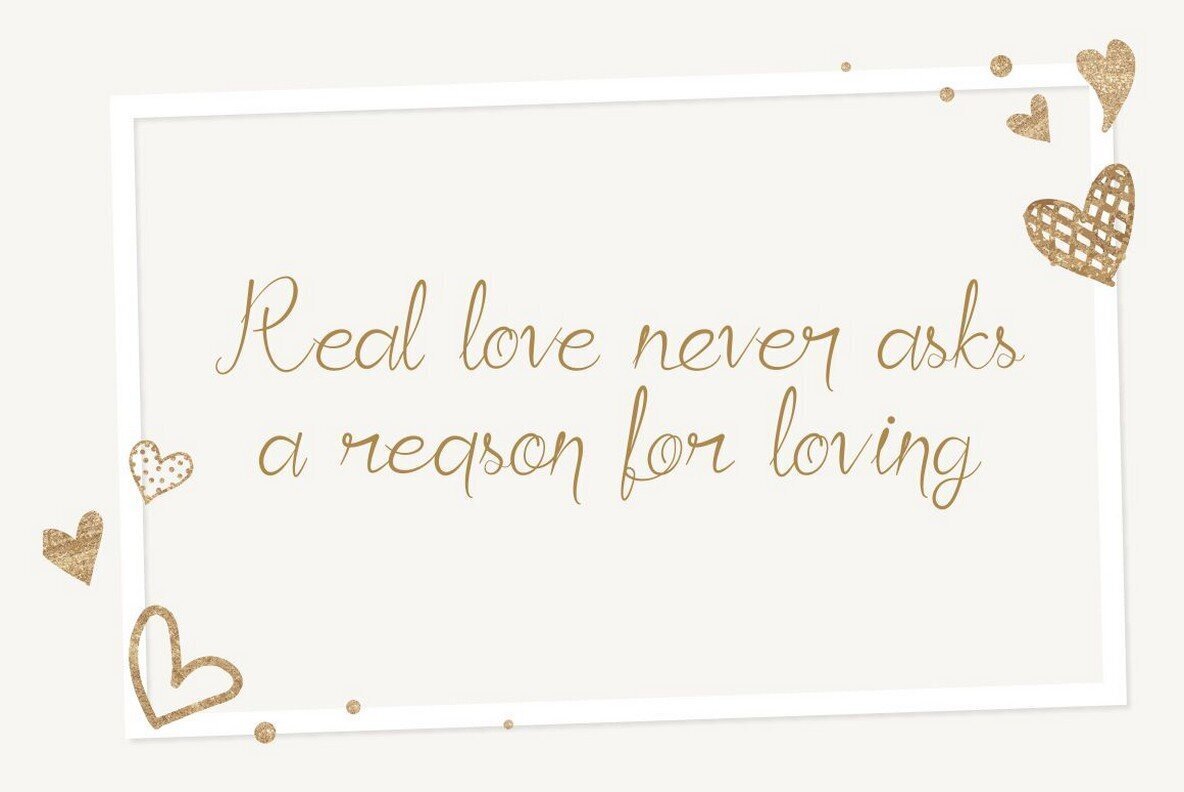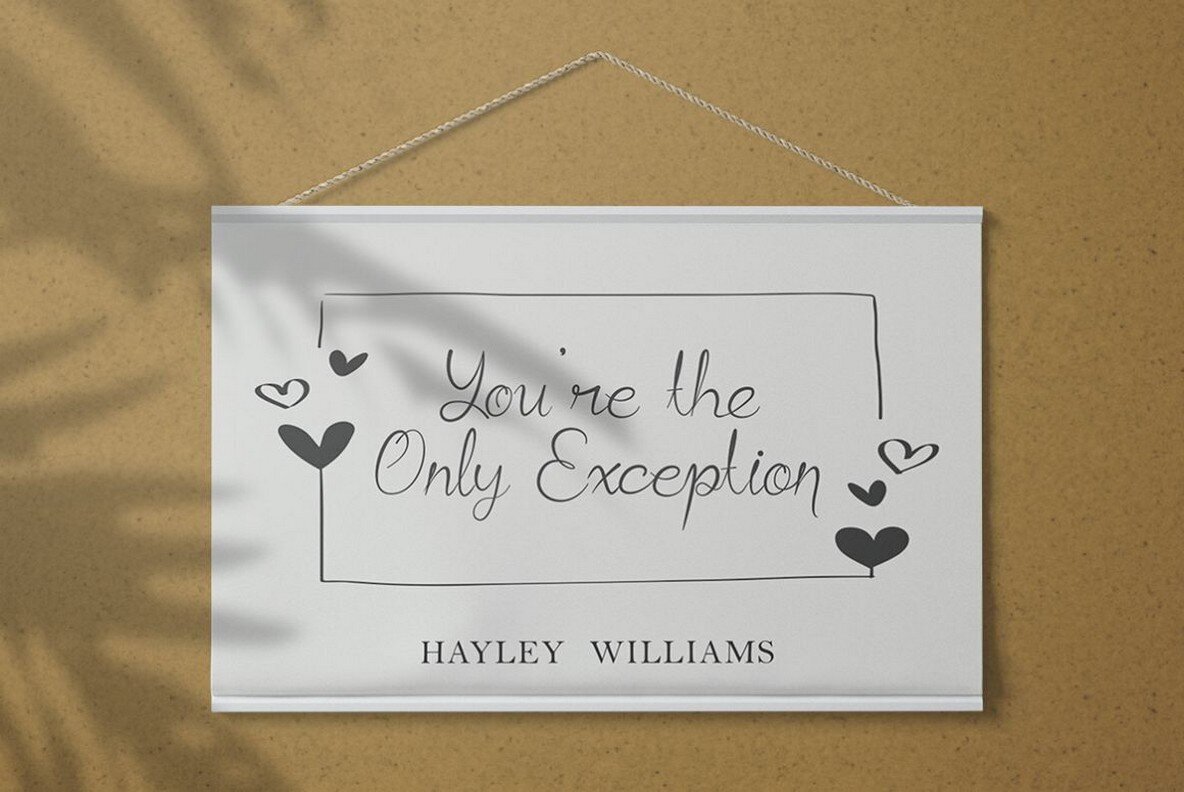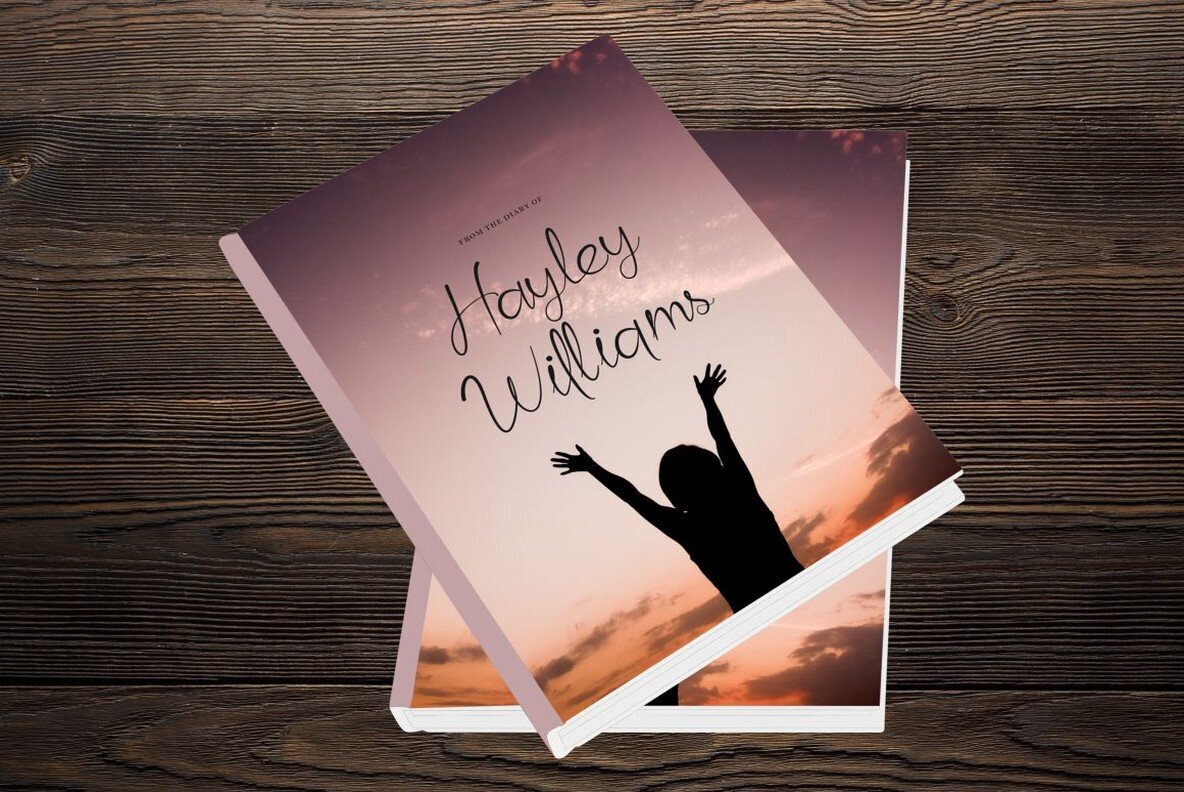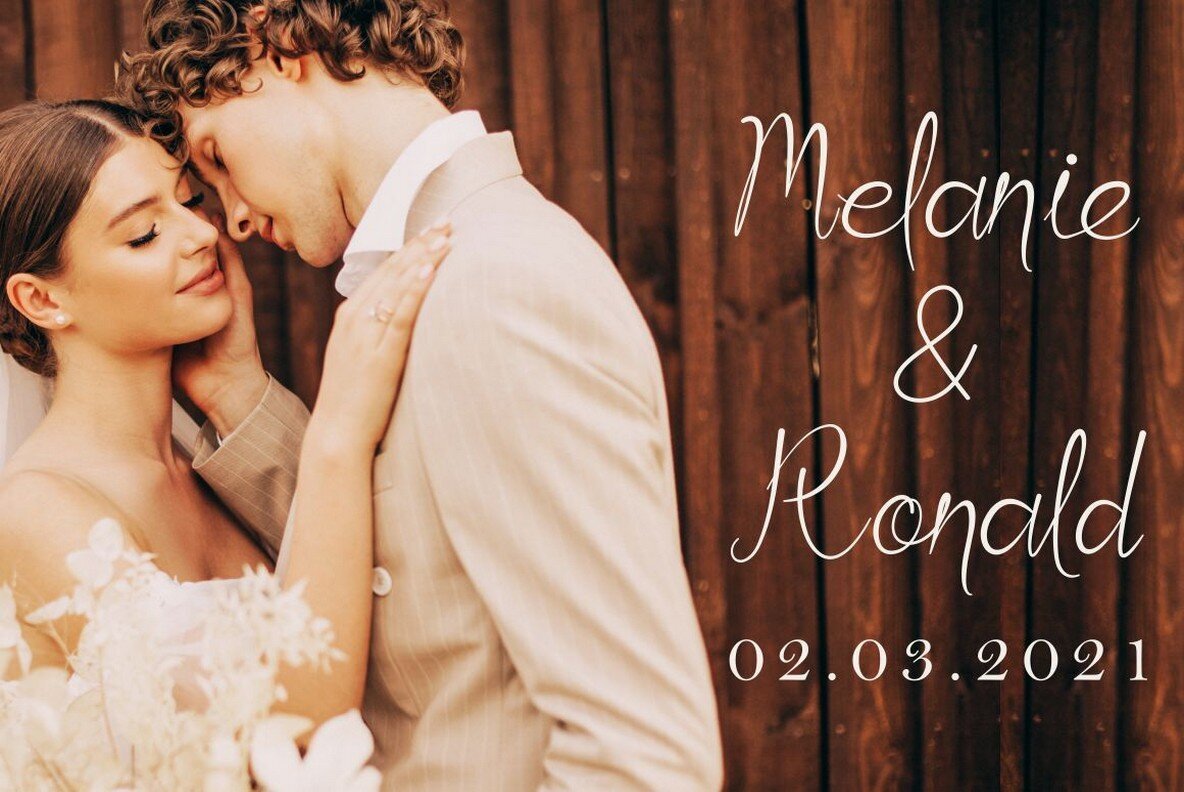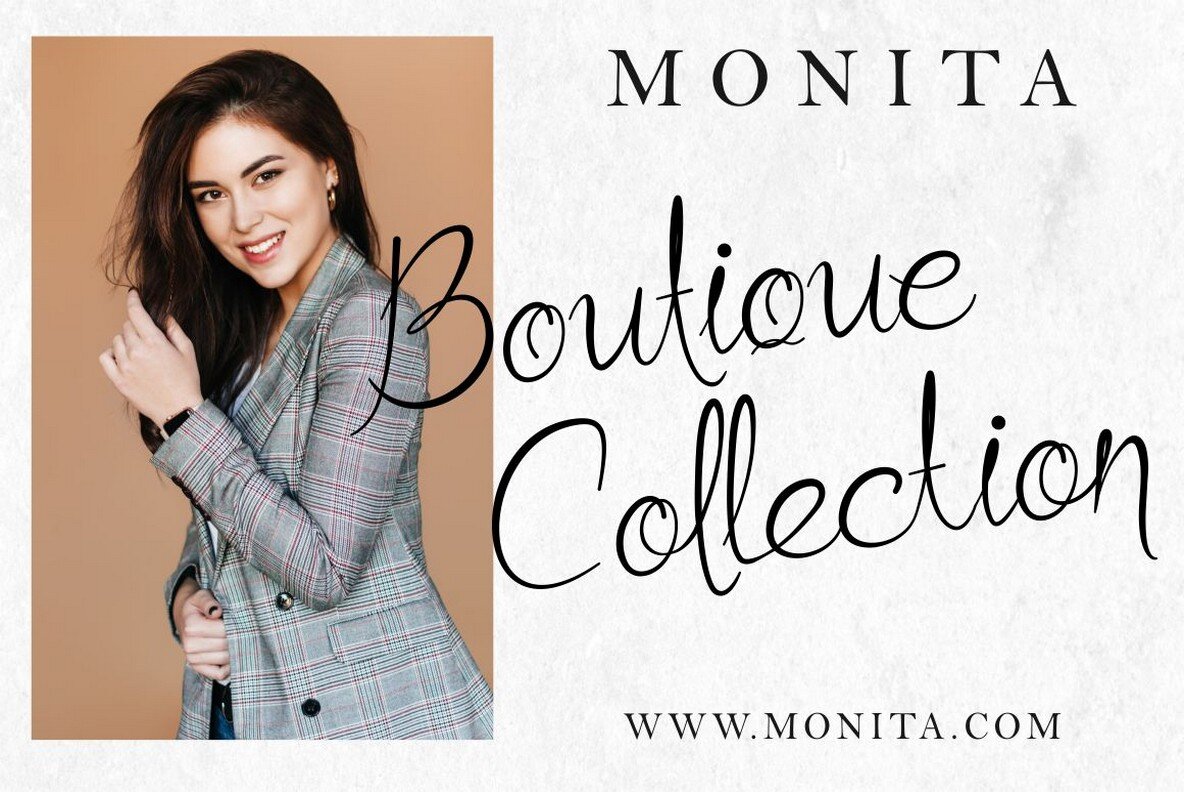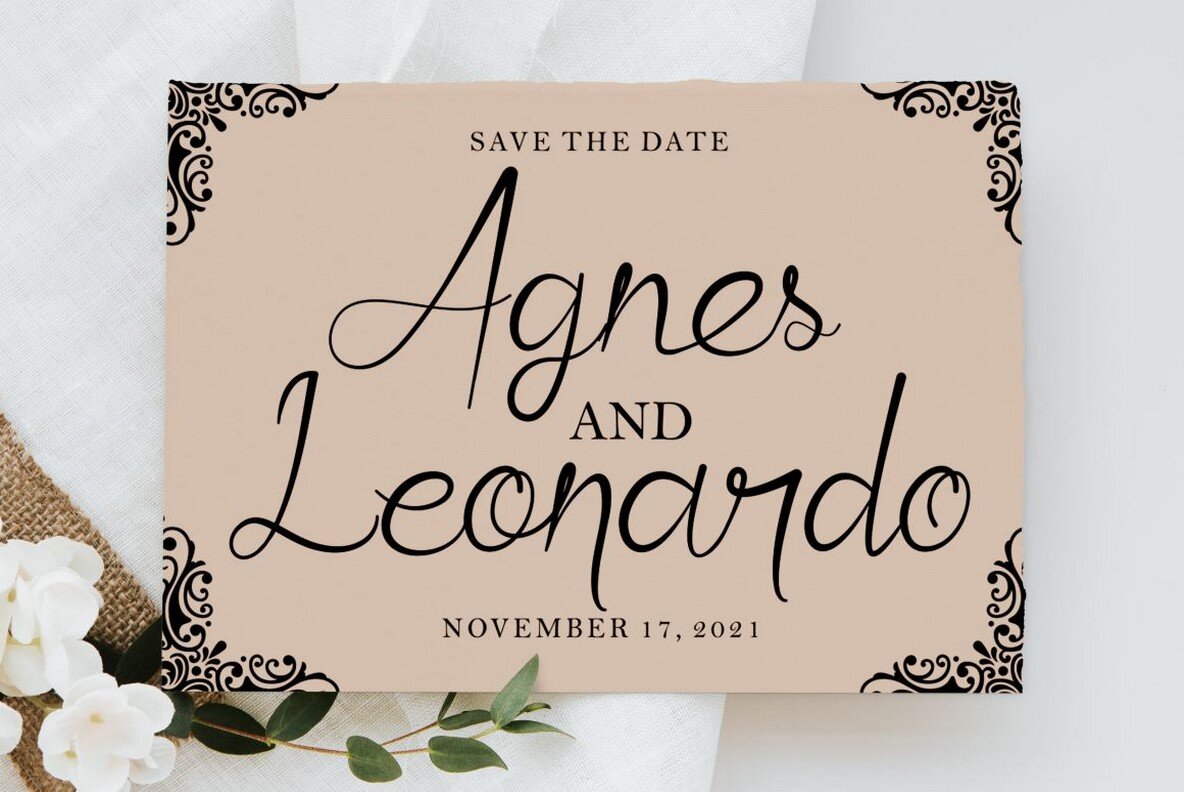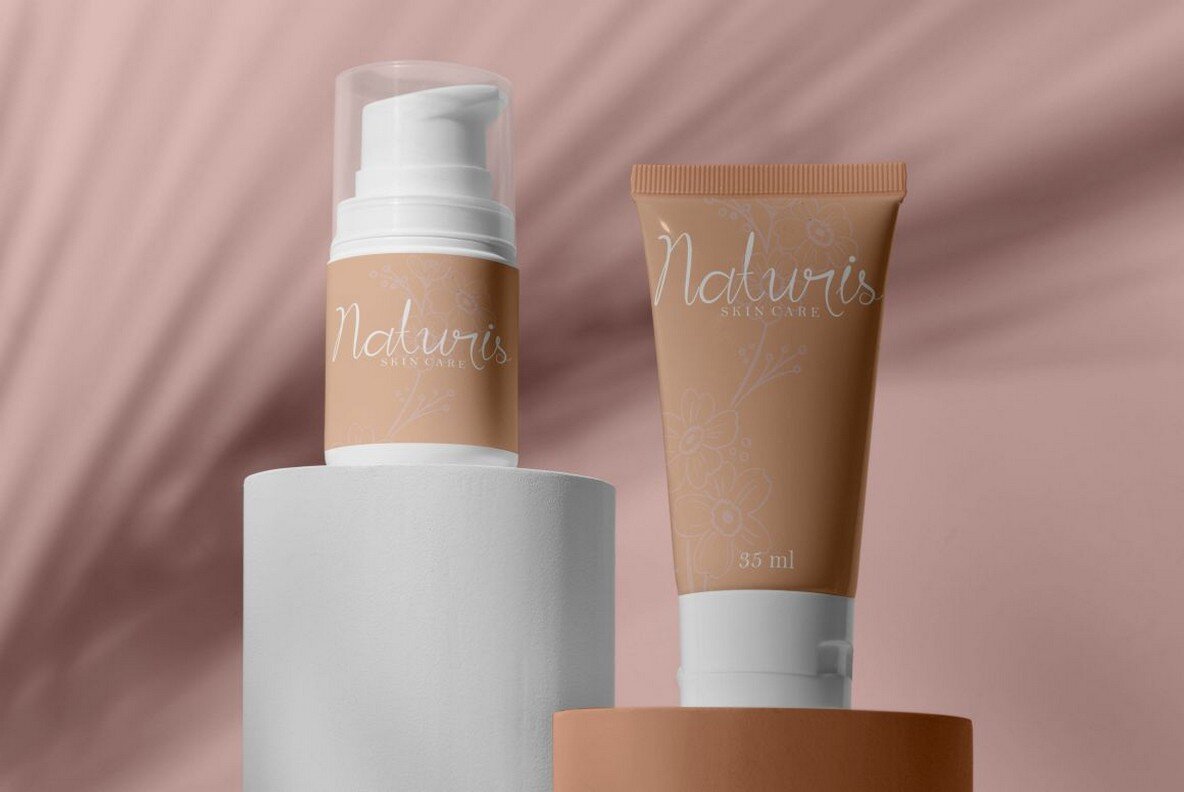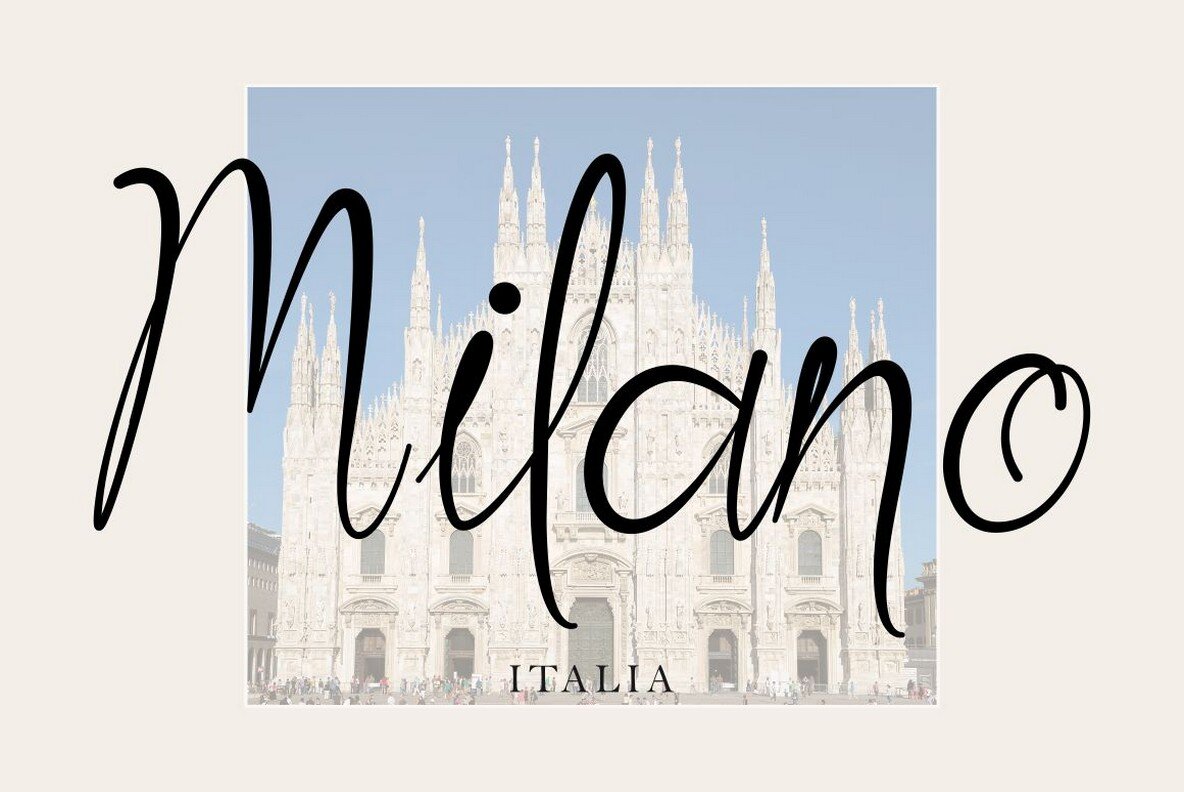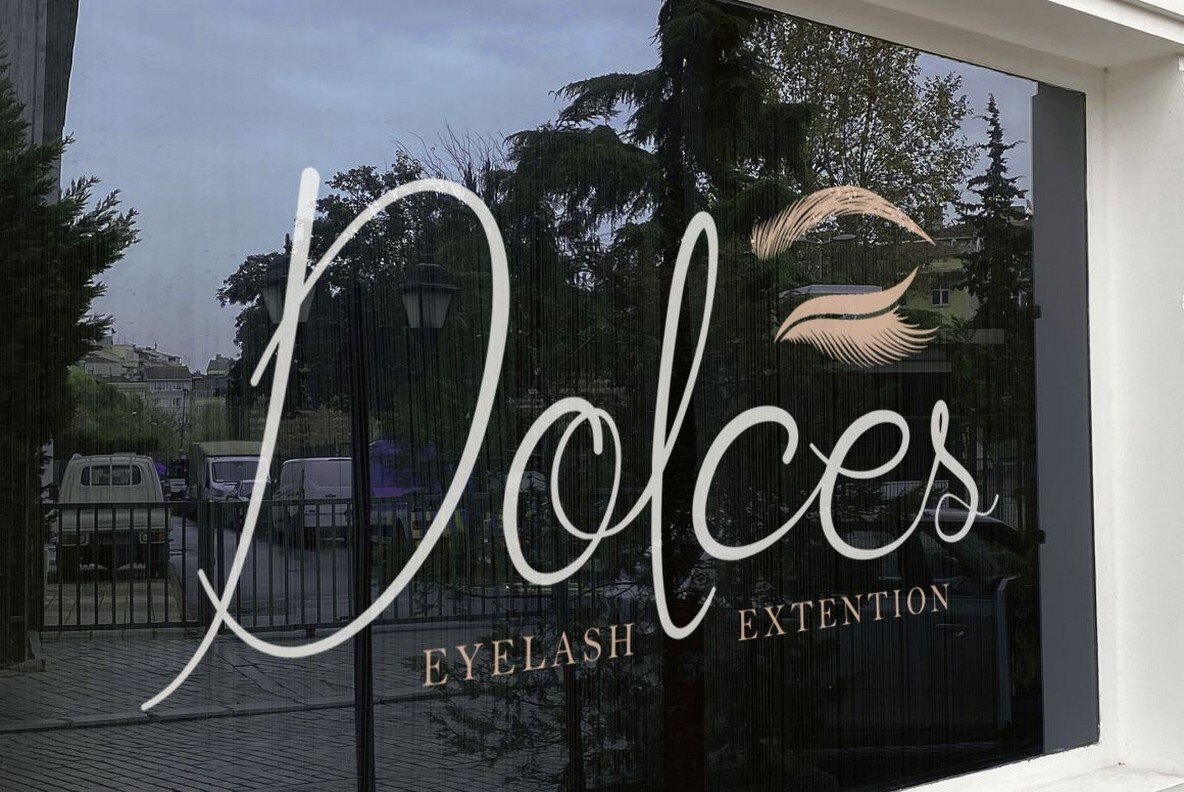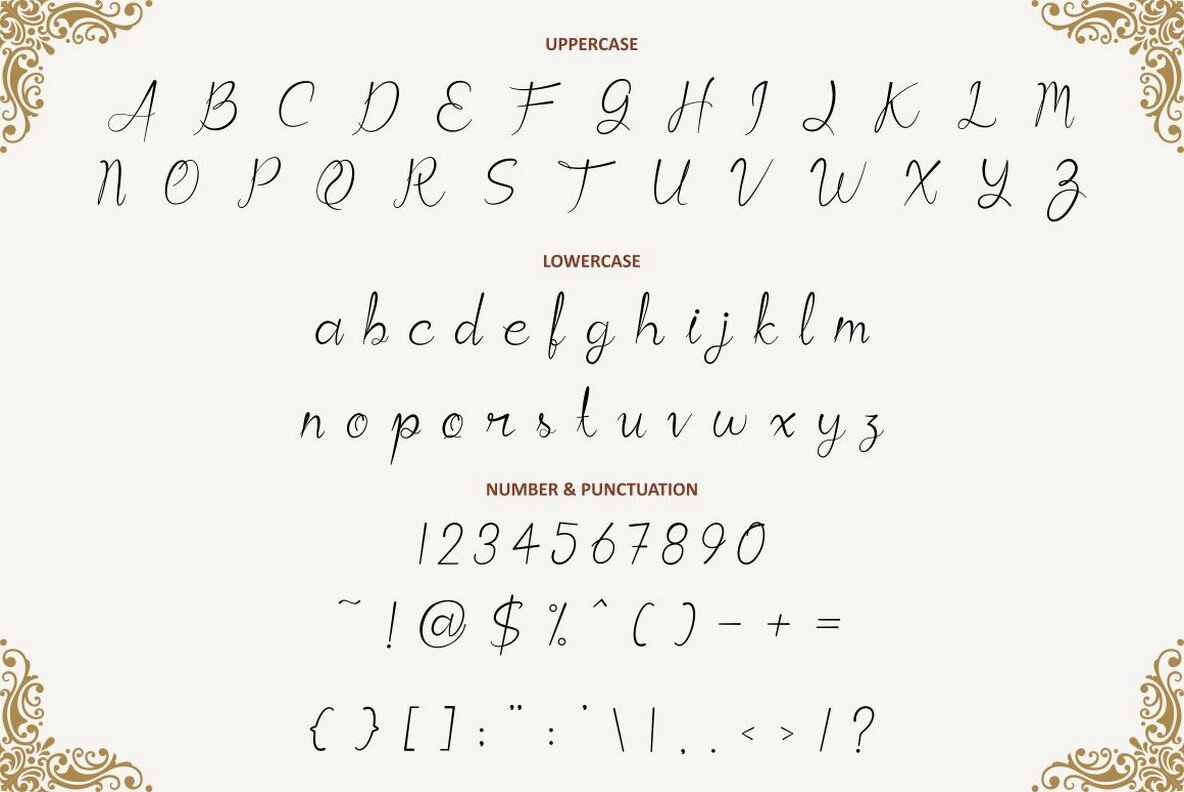
The Bad Signature Font
The Bad Signature
The Bad Signature Font is a beautifully written handwritten signature font with an elegant and modern twist. This font is perfect for luxury brands and upscale invitations and products. The natural handwriting combined with the modern style makes this font perfect for a variety of applications.